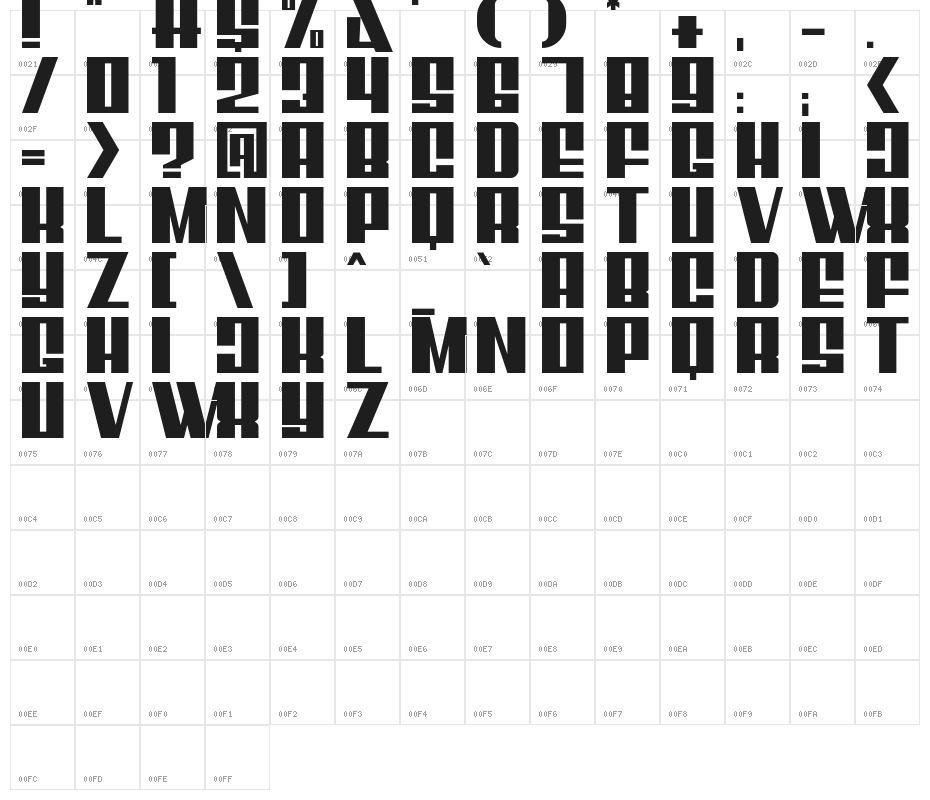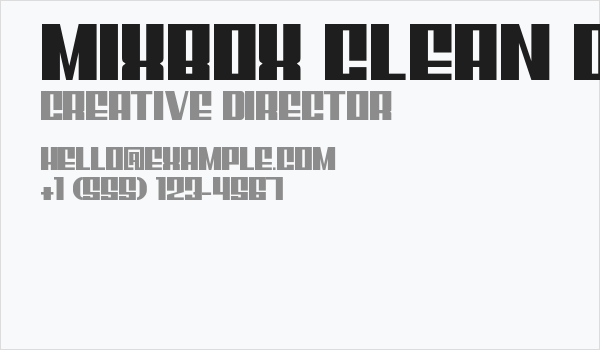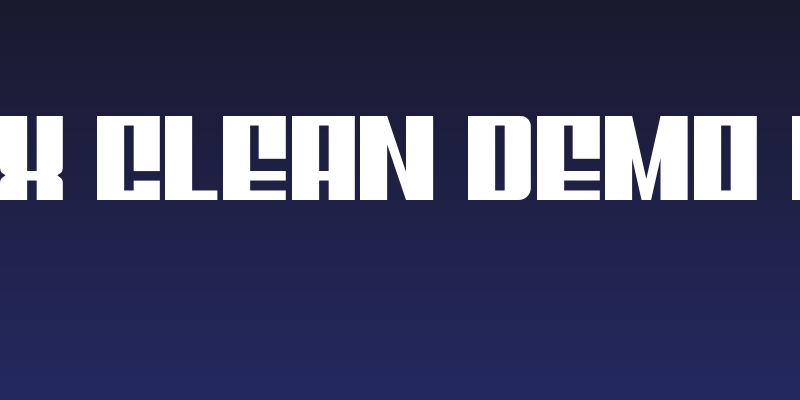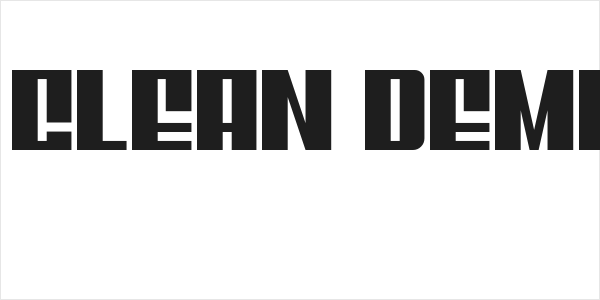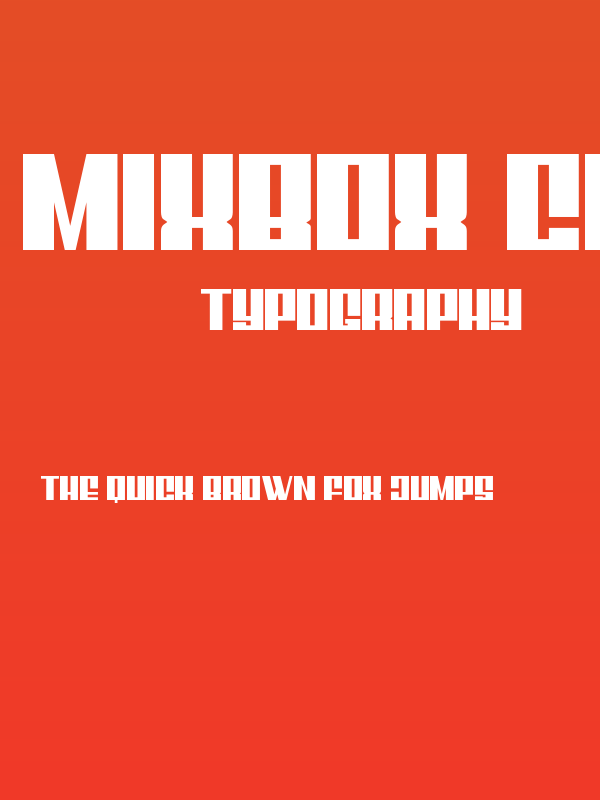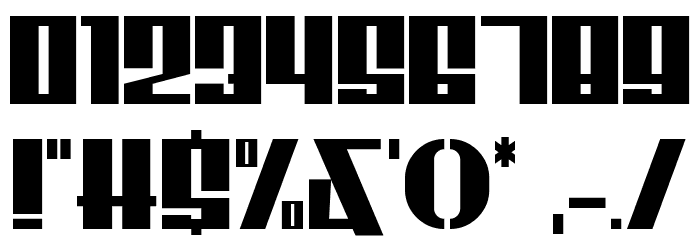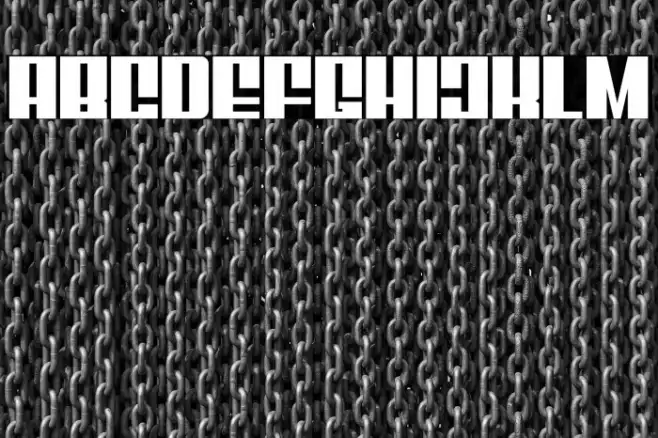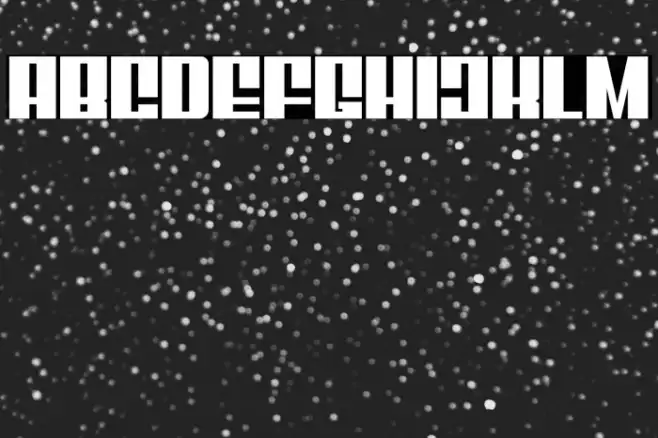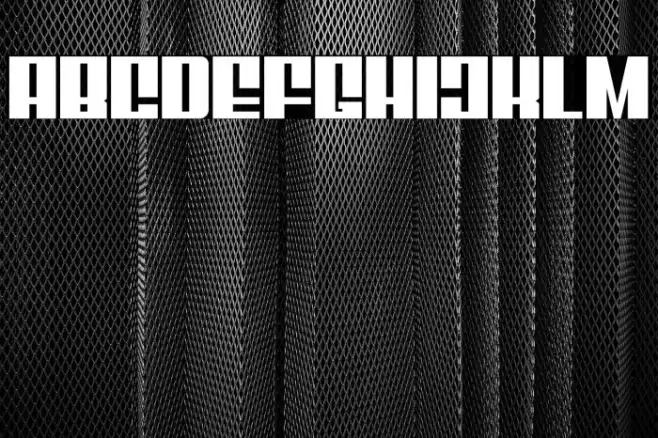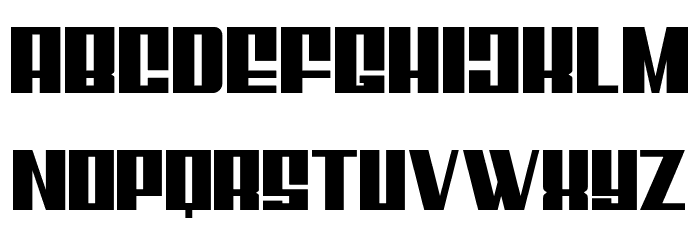
Mixbox Clean Demo Clean Font
Mixbox Clean Demo Clean Description
This font features a bold, geometric design with a strong emphasis on angular shapes and sharp edges. Each character is constructed with thick, uniform strokes that create a sense of solidity and impact. The uppercase and lowercase letters maintain a consistent height, contributing to a monospaced appearance. The numerals and special characters follow the same design principles, ensuring a cohesive look across all glyphs. The font's style is reminiscent of industrial and futuristic aesthetics, making it suitable for projects that require a modern and assertive visual presence.